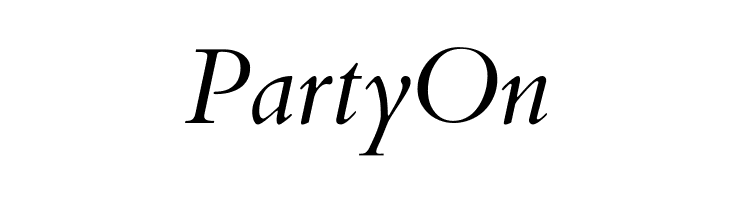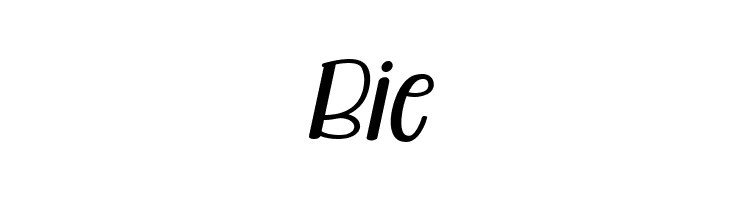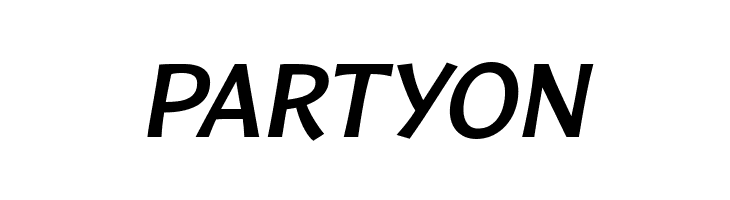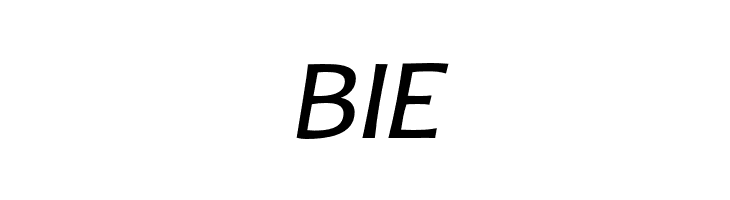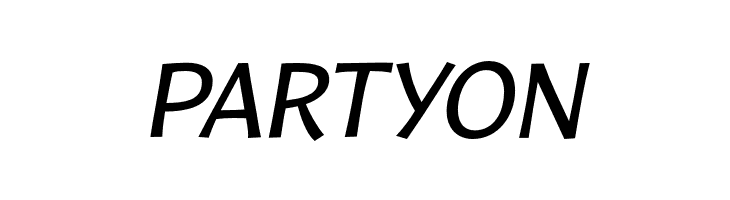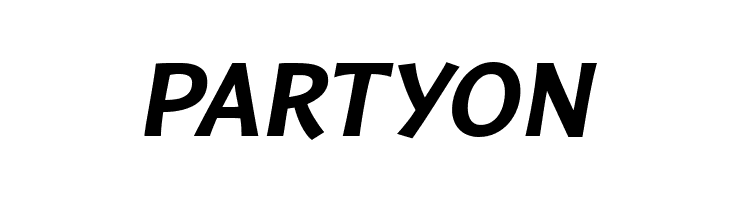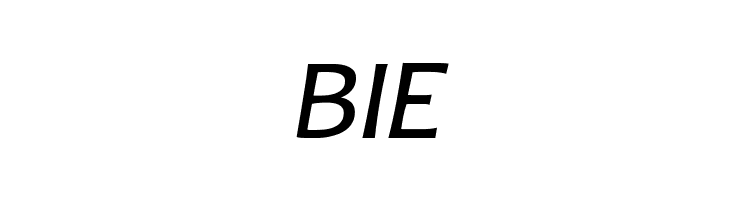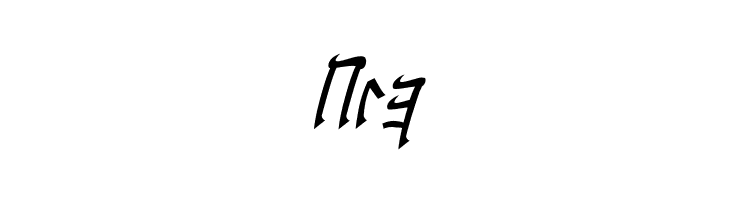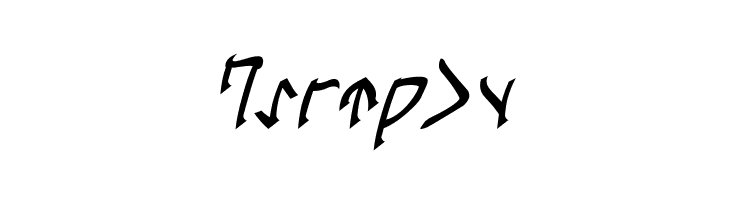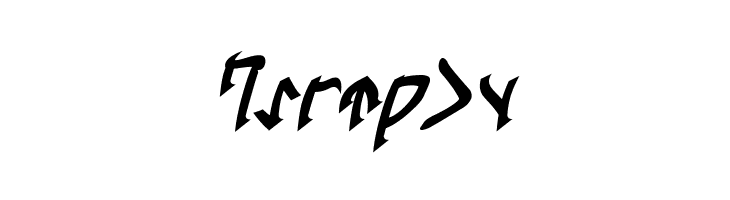
• CardiganTitlingRg-BoldItalic
A bold, italic font with a dynamic and assertive style.
• CardiganTitlingRg-Italic
A modern, italic sans-serif font with a sleek and professional appearance.
• CardiganTitlingRg-Italic
A modern, italic font with clean lines and a dynamic slant.
• CardiganTitlingSb-Italic
A sleek, modern italic font with smooth curves and dynamic slant.
• CardiganTitlingSb-Italic
A modern, italic font with clean lines and a dynamic slant.
• Cardo Italic
An elegant serif font with a classic italic style and smooth, flowing lines.
• Cardo Italic
• Cardosan Bold Italic
A bold, italicized font with sharp angles and high contrast, ideal for dynamic designs.
• Cardosan Italic
A bold, italicized font with angular, dynamic letterforms.
• Care Around Italic
A playful, italic font with smooth curves and a dynamic style.